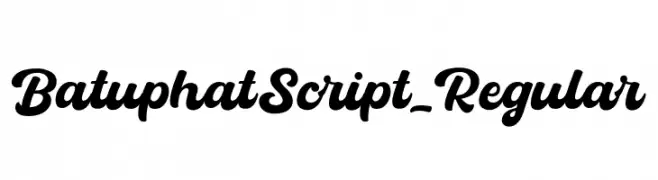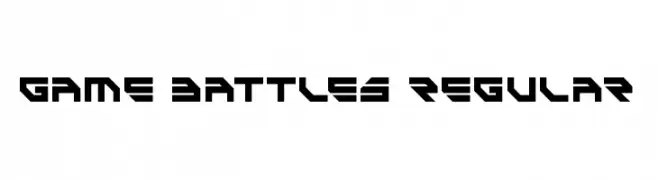
A playful, handwritten font with smooth, rounded strokes and a casual style.
A lively and flowing script font with elegant curves and smooth strokes.
A decorative font with elegant cursive strokes and playful accents.
A bold, italicized font with a futuristic and dynamic style.
A bold, futuristic font with geometric shapes and sharp angles.
A bold, flowing script font with smooth, connected strokes.
A bold, playful script font with a 3D extruded effect and whimsical style.
A bold, geometric font with a futuristic, digital aesthetic.
An elegant, flowing script font with a sophisticated handwritten style.